God save typography: Regal fonts to the rescue in the latest Font Sunday frenzy
It was a very Regal Sunday over at Twitter this past weekend with a totally British reason. To celebrate Queen Elizabeth II's official birthday the Design Museum dedicated it's Font Sunday theme to regal fonts.
With plenty of examples, spanning from the Atlantic's Martin Luther King cover through Vasilis Marmatakis' work for Yorgos Lanthimo's multi-awarded The Favourite to 7th Century Visigothic votive crown found in a Spanish orchard in 1850s with suspended gold letters reading "RECCESVINTHVS REX OFFERET" aka "King Recceswinth offered this" this #FontSunday was pure typographic royalty.
Parachute's Regal Display Pro, the multi-award-winning typeface with its very own Red Dot: Grand Prix 2012 Award as part of the Regal Pro type system is a typeface which went viral in the Twitterverse.
Elegant and vibrant this serif typeface "incorporates several distinct elements blended with classic forms and is ideal for magazine editorials" notes type designer Panos Vassiliou.
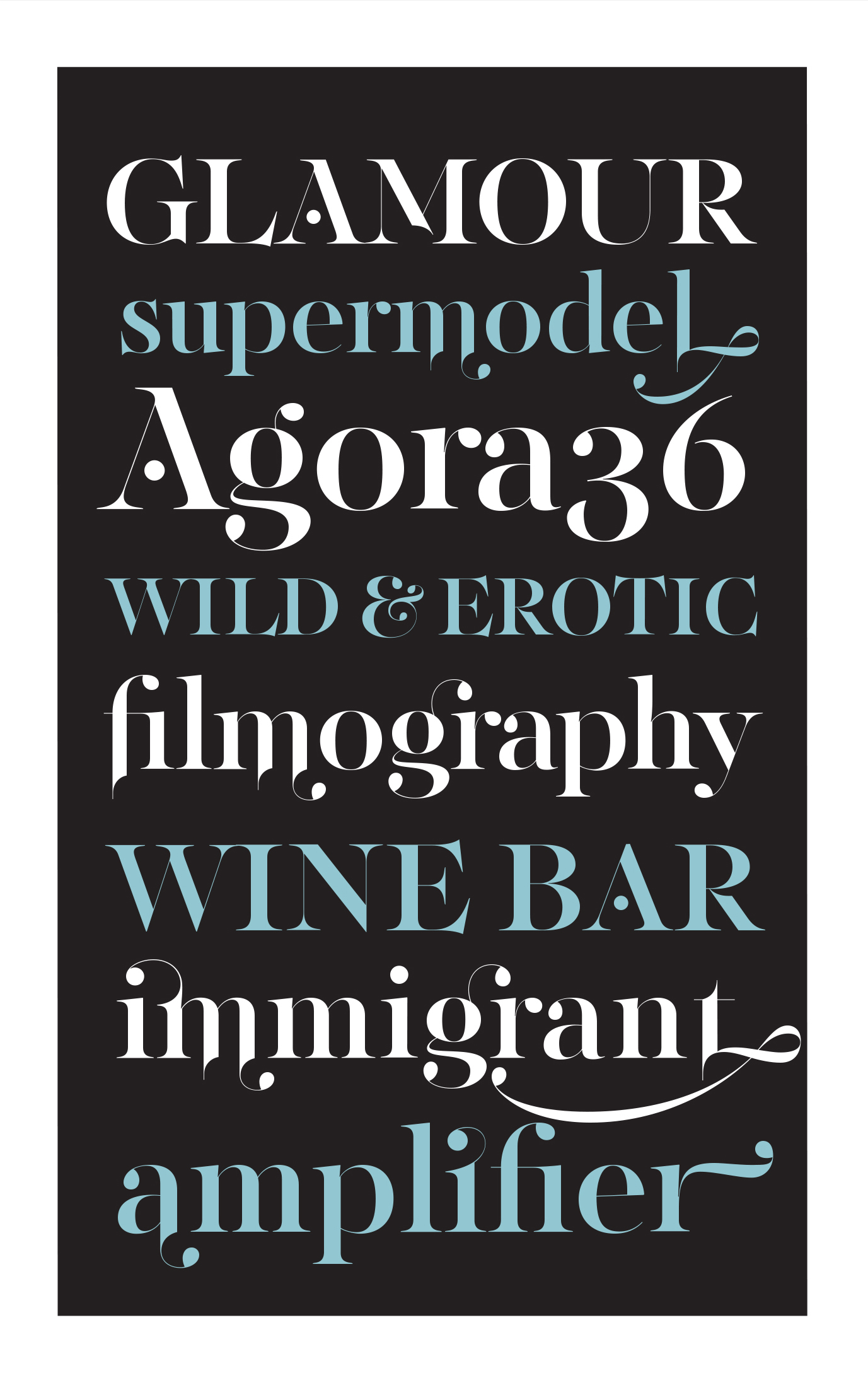
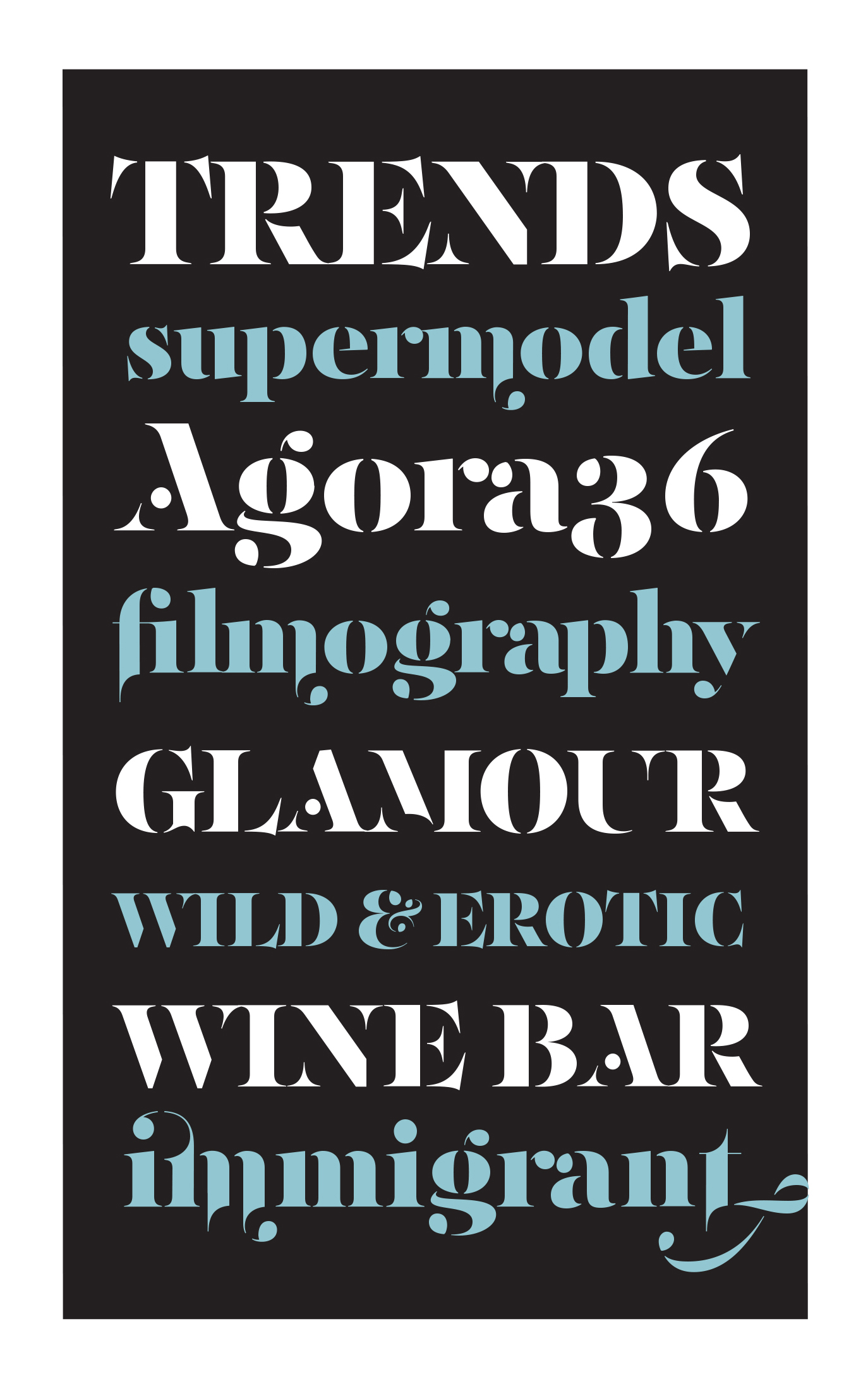
"The objective of this project was to design a new typeface series for Grazia magazine. First published in 2010, Regal was later revamped and redesigned for commercial use, evolving into a type system with five related superfamilies. According to the brief, this typeface had to be elegant, luxurious, sexy, vibrant, reflect the female sensitivity and take into consideration a modern woman who is more proud, more connected, more spontaneous, open-minded and eager to try a whole host of new products and services."
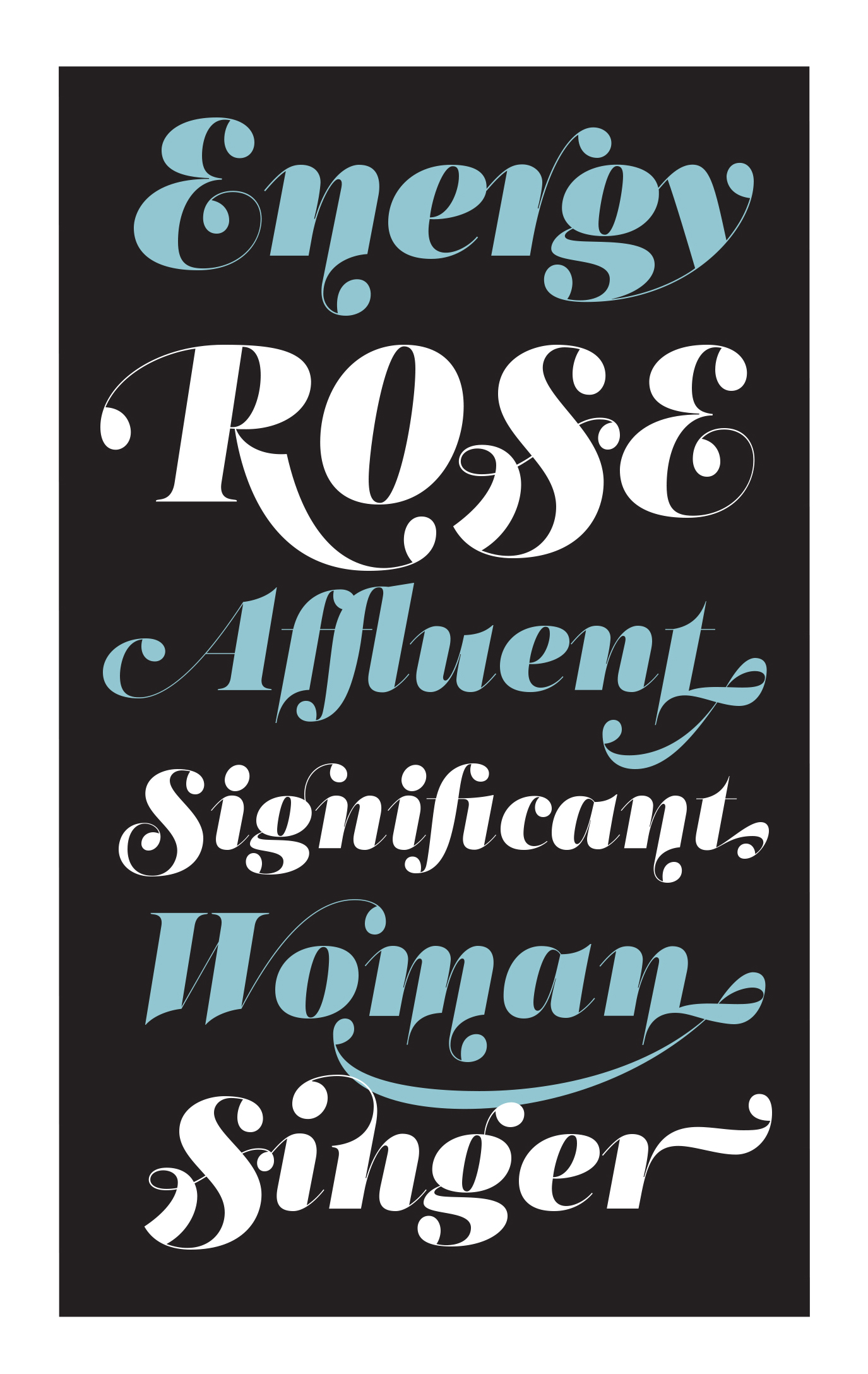
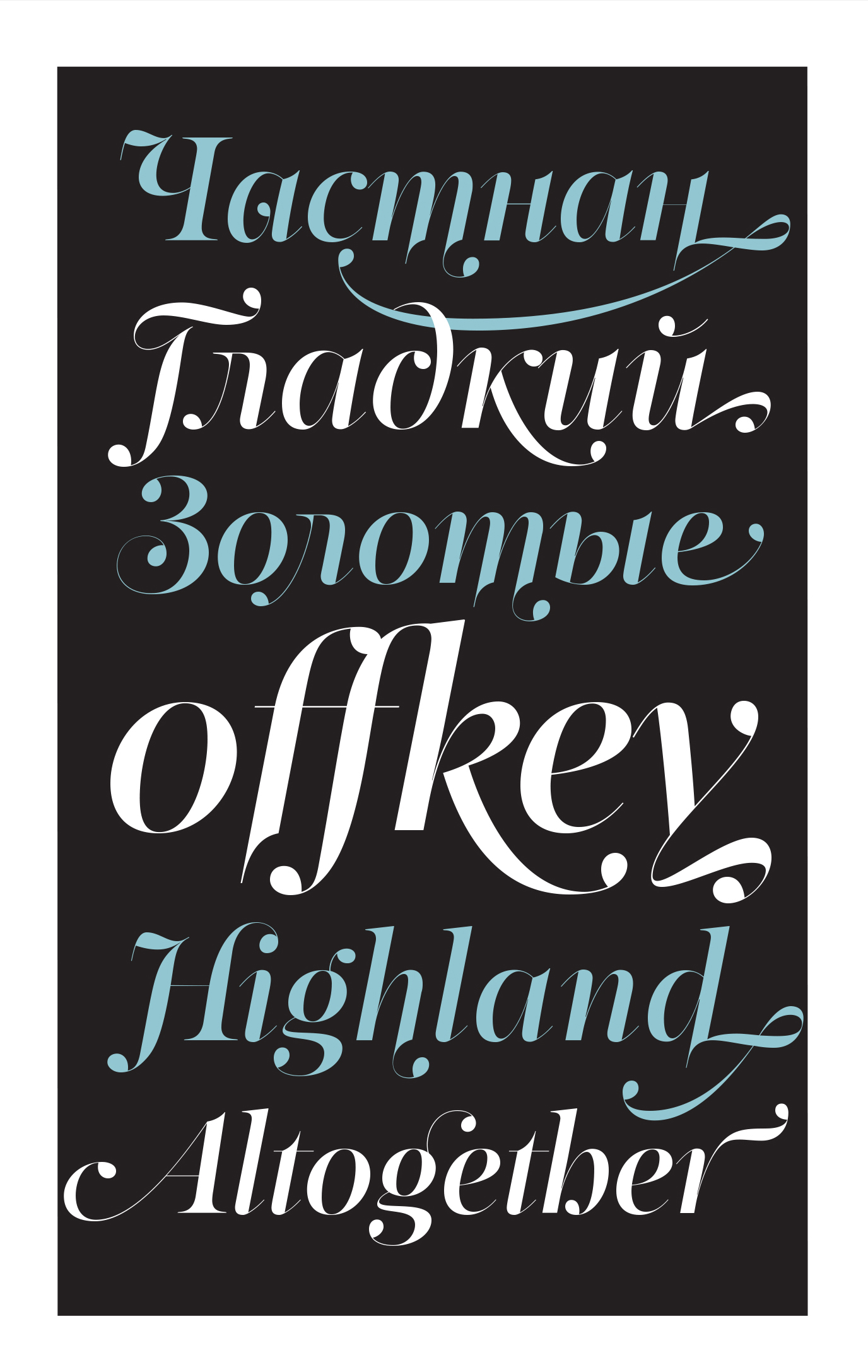
The typeface had to be elegant, luxurious, sexy, vibrant, reflect the female sensitivity and proud
"Targeting this consumption-wise and well-educated woman required a typeface that is not strictly based on classic forms, but incorporates several distinct elements that express a modern woman’s personality and the products she consumes. In that respect, a whole series of 5 related superfamilies was designed, which not only emphasize femininity but also reflect both the romantic as well as the dynamic side of the female personality."
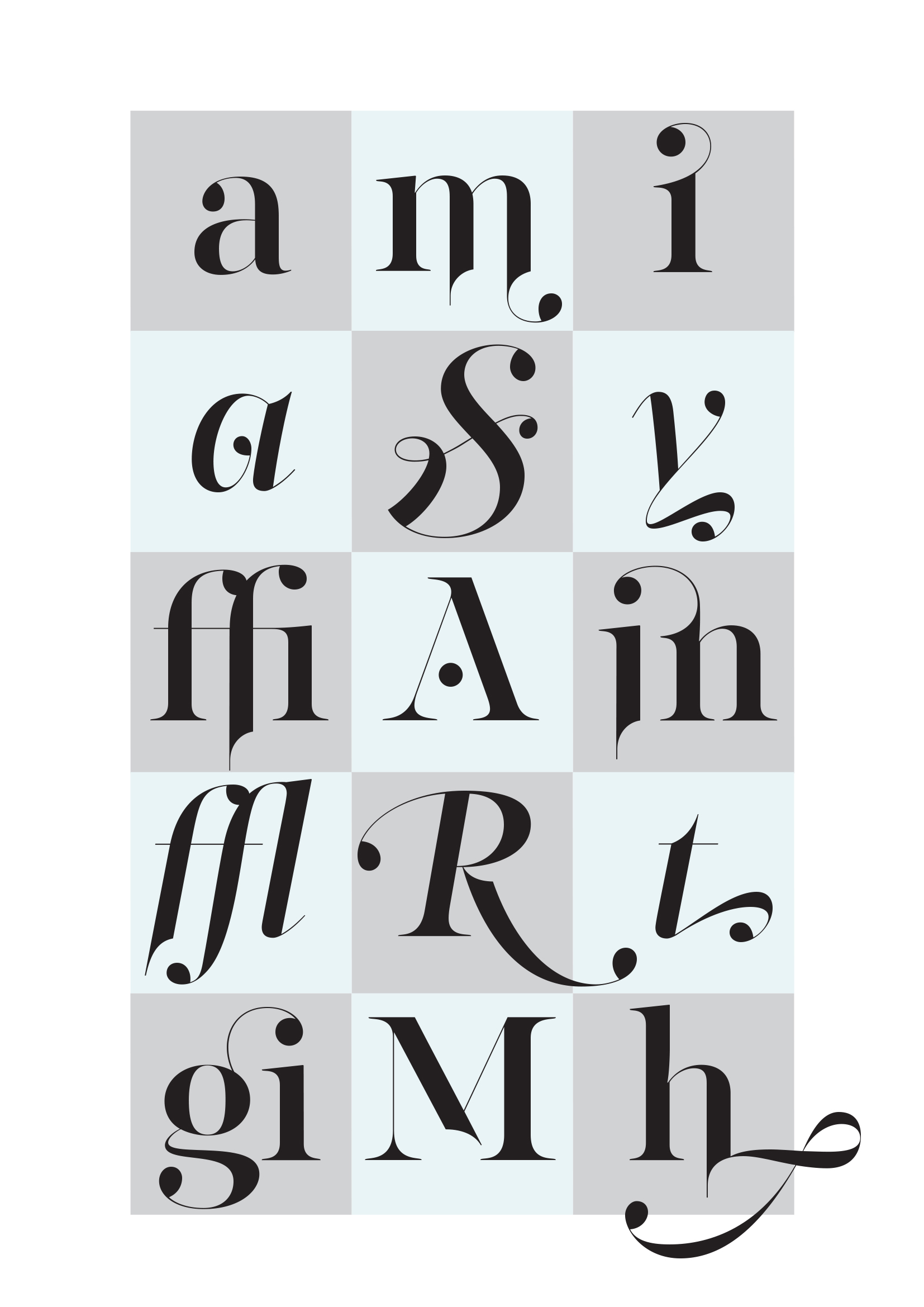
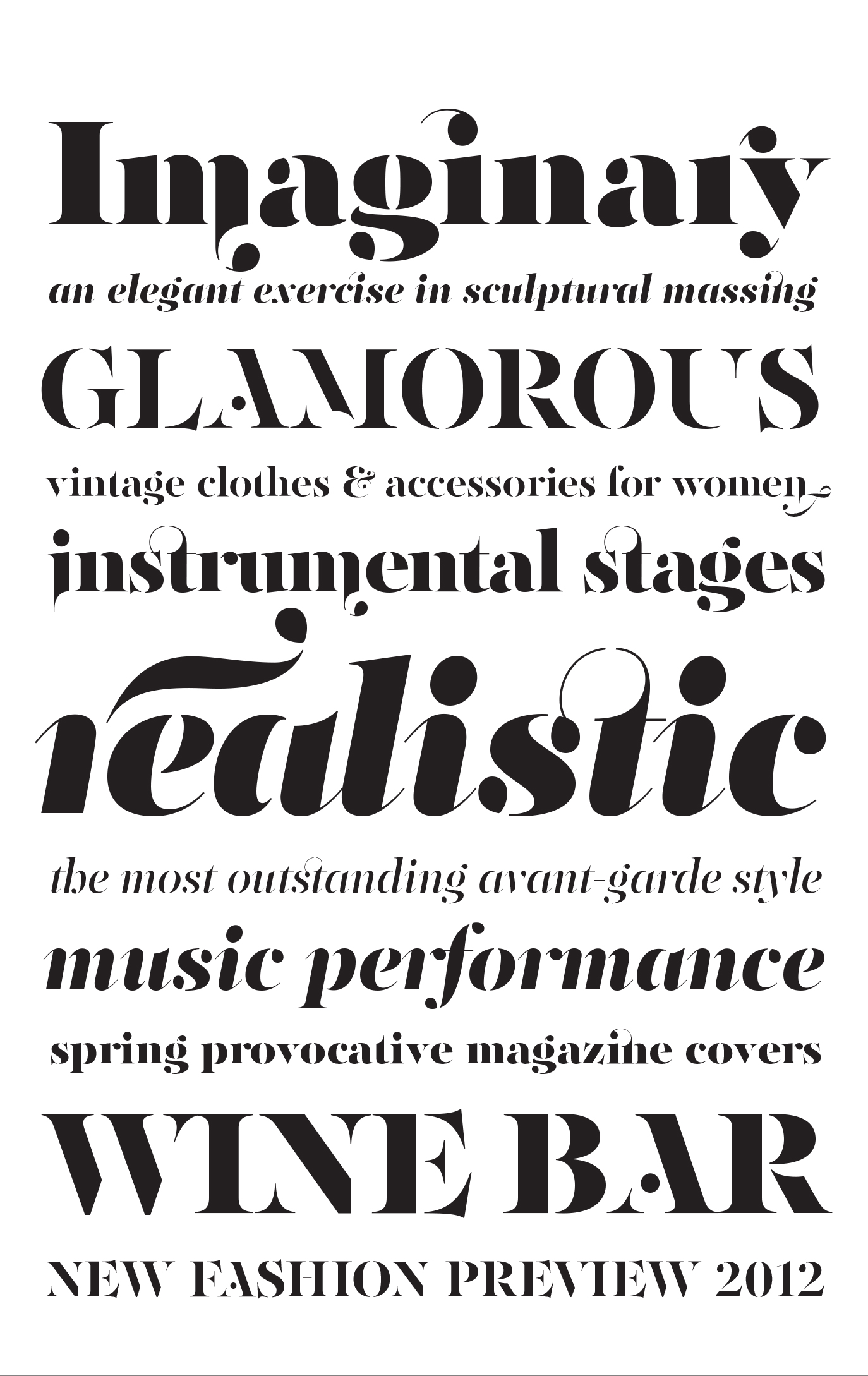
This series of typefaces is diverse in its construction as it consists of five related superfamilies. The whole superfamily type system is comprised of 47 weights with an average of 898 glyphs per weight.
"This series of typefaces is diverse in its construction as it consists of five related superfamilies i.e. text, display, finesse, swash, and stencil. There is a variety of weights which range from regular to ultra black for each one of the five families. These families share common attributes but they differ in content according to each one’s usage. The whole superfamily type system is comprised of 47 weights with an average of 898 glyphs per weight. It supports simultaneously Latin, Cyrillic and Greek and comes with many alternate glyphs."